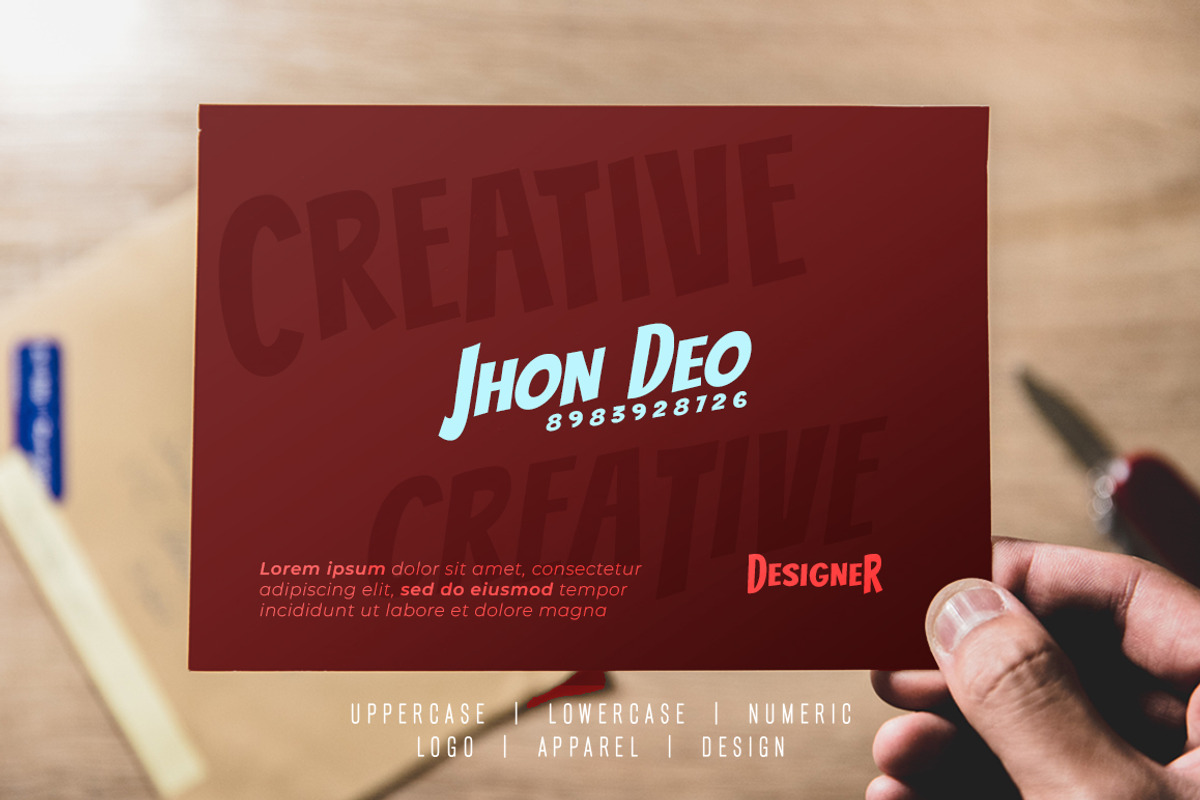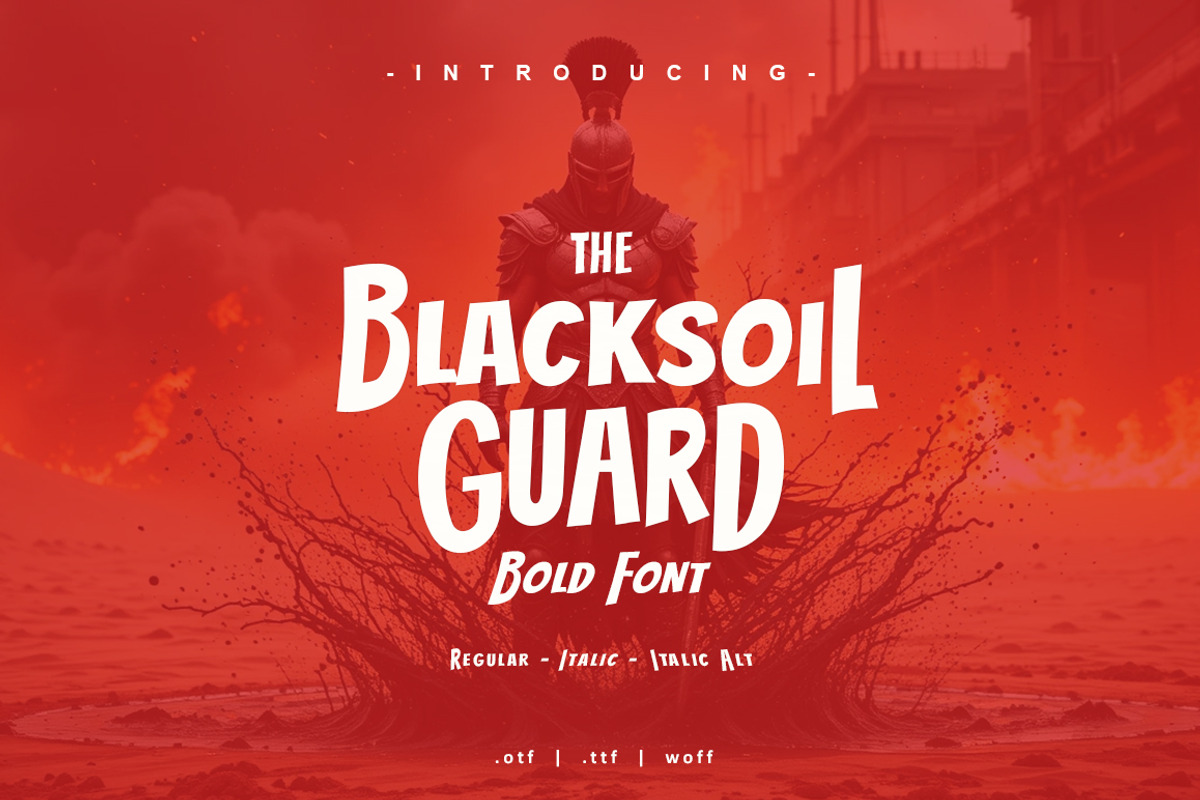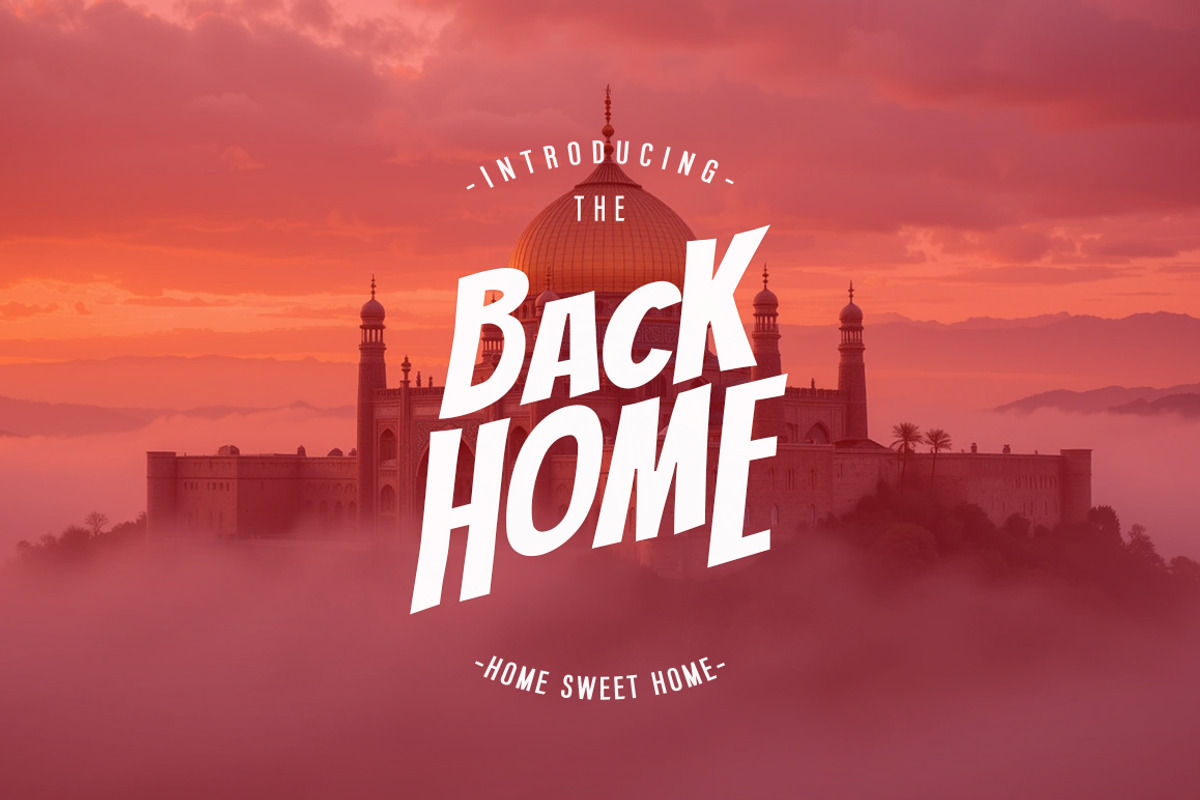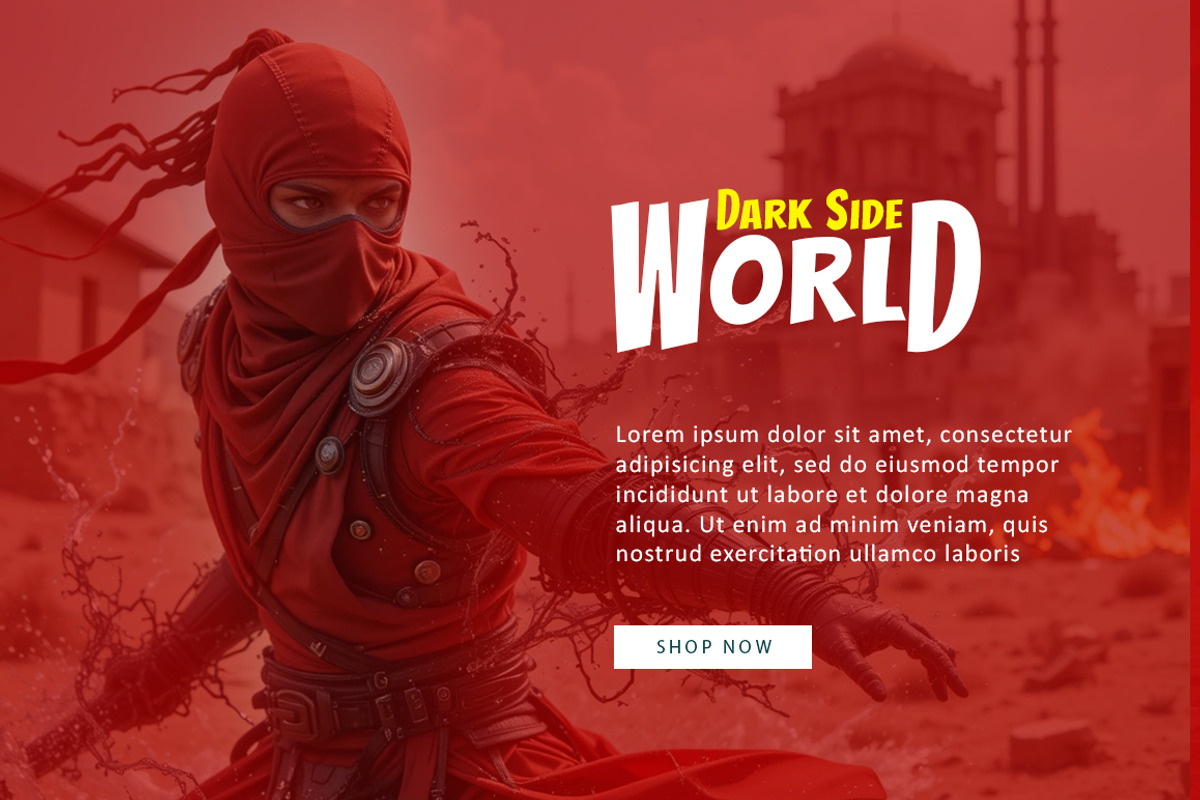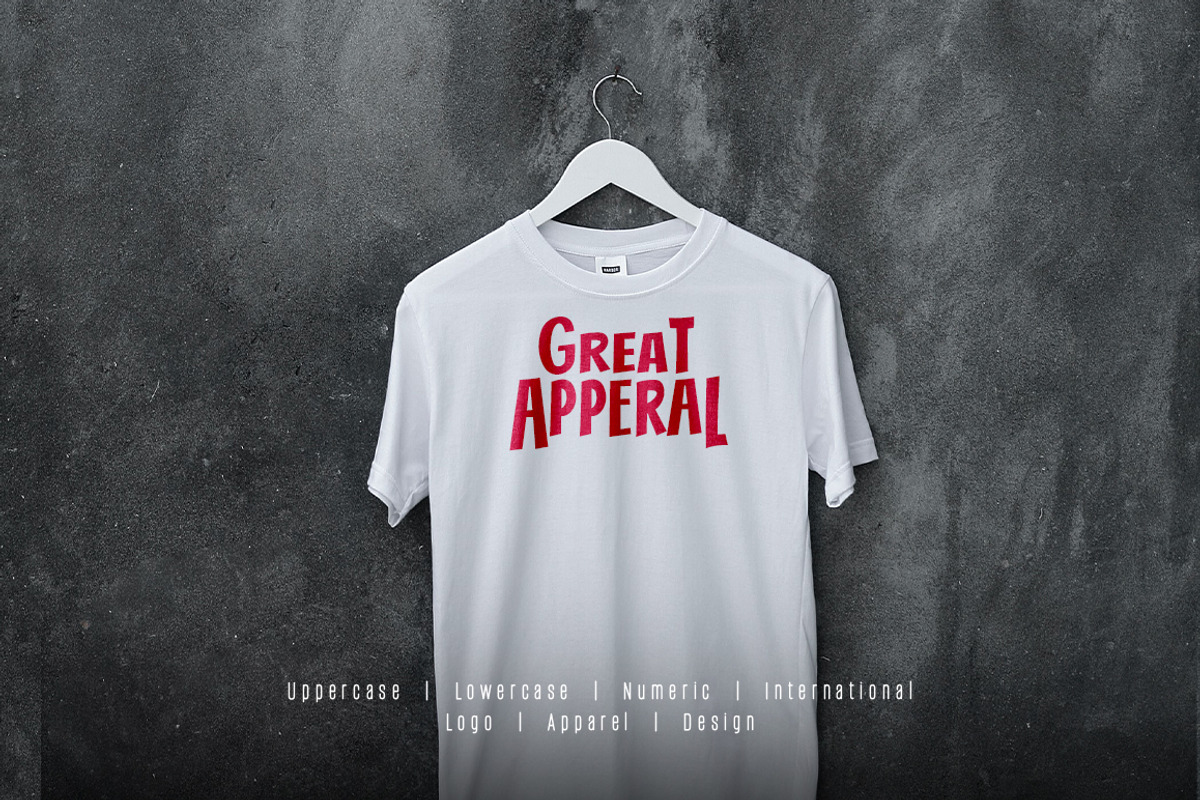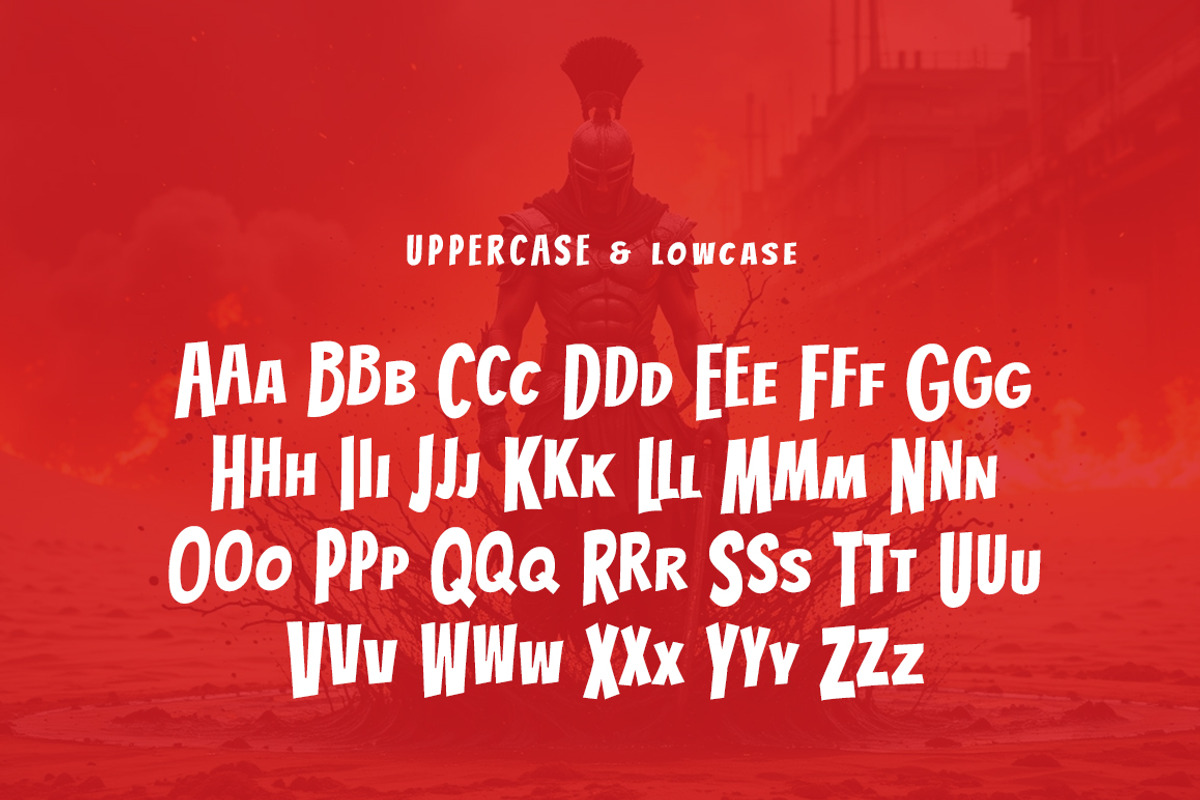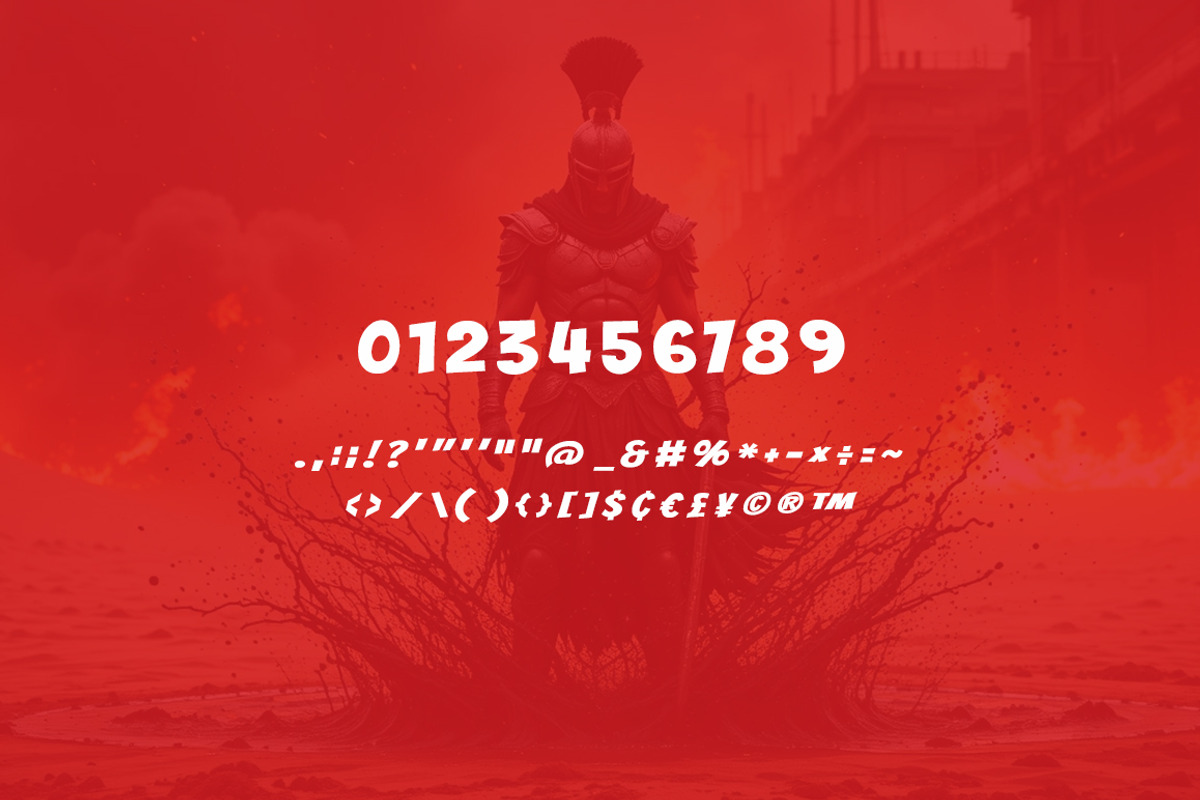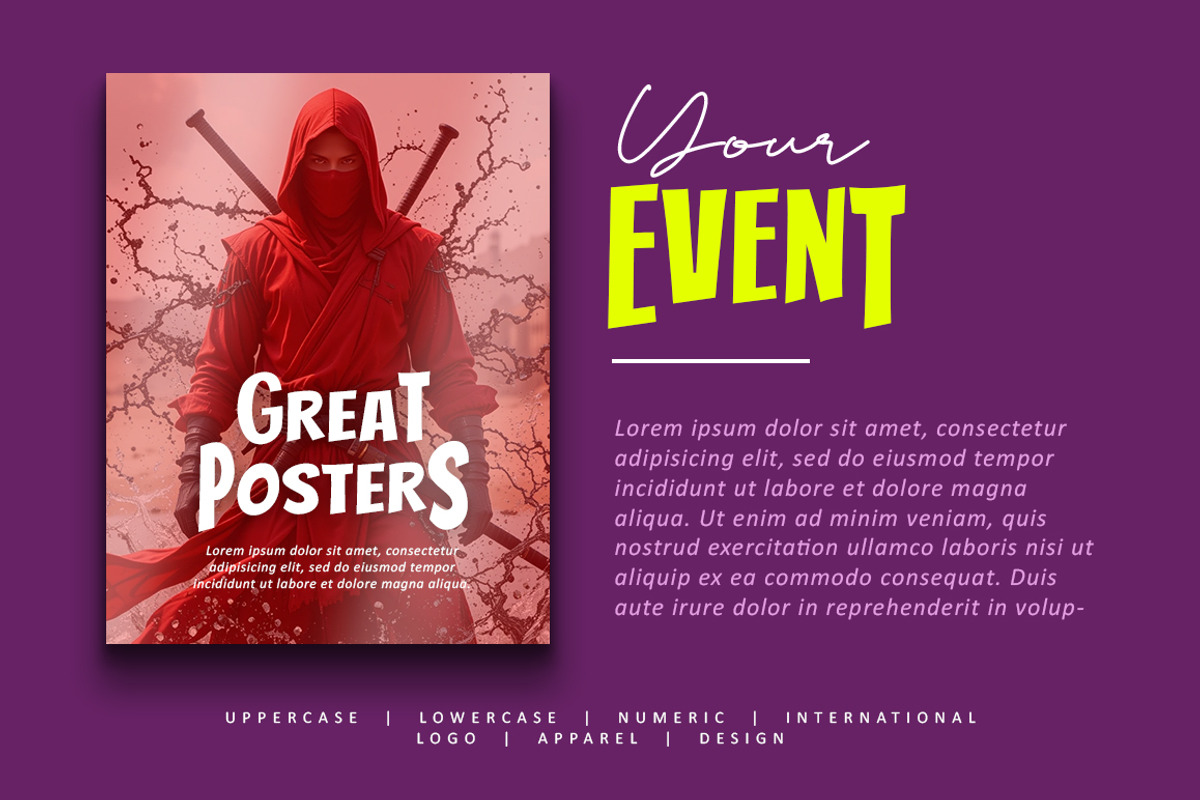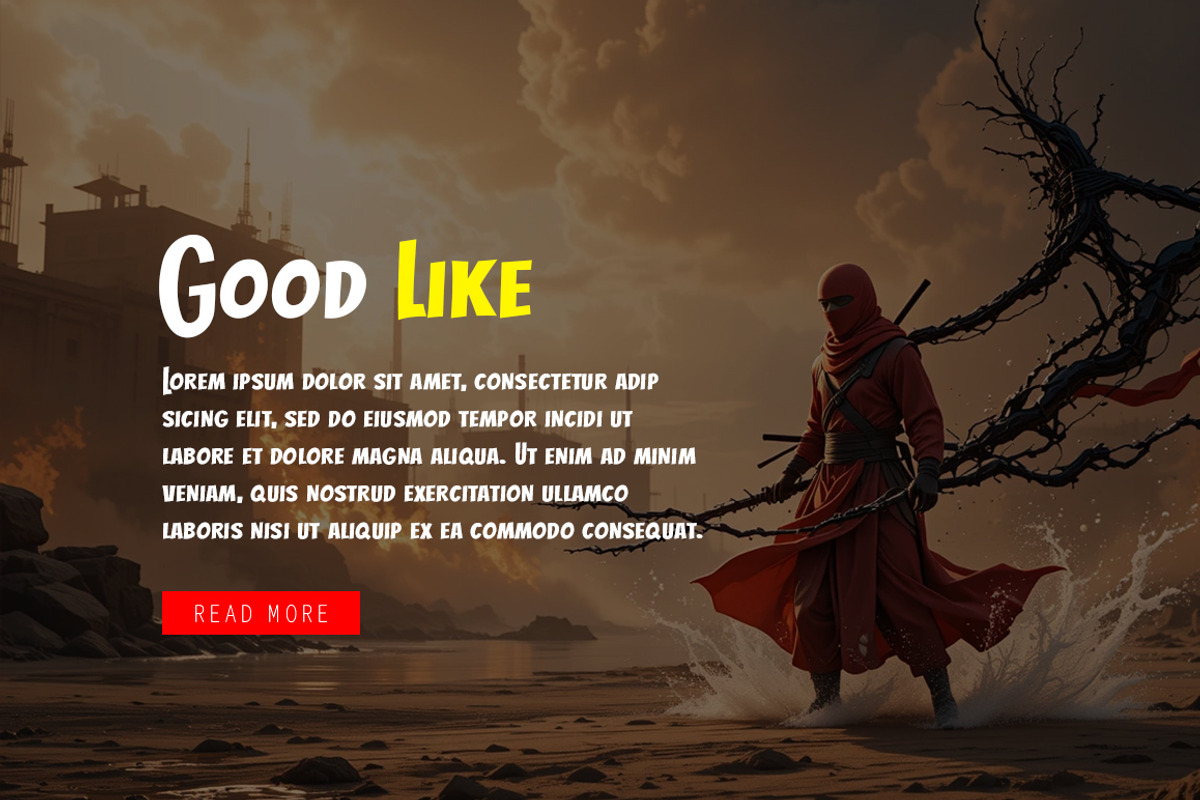
Blacksoil Guard Font
Blacksoil Guard Font very suitable for poster, for logo, music cover, clothing, and many many cool design projects. Blacksoil Guard Font is uppercase, lowercas and numeric. Regular, Italic and Alternate Font